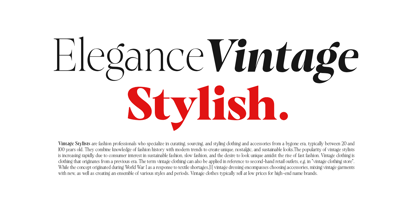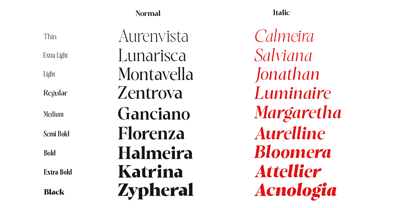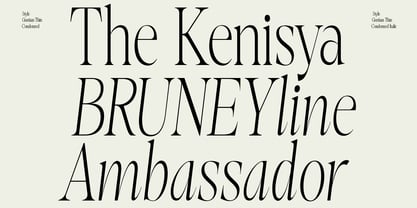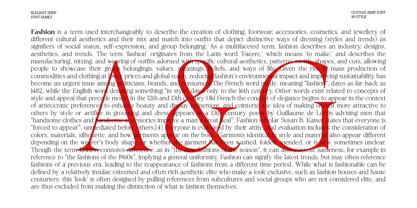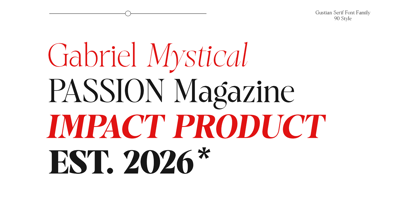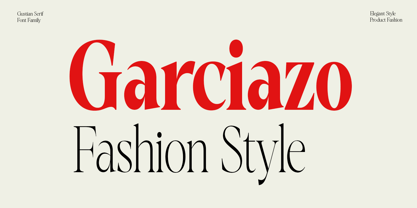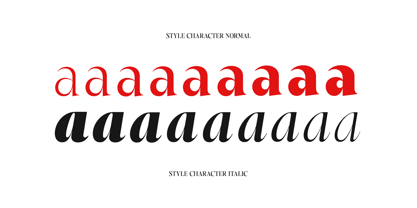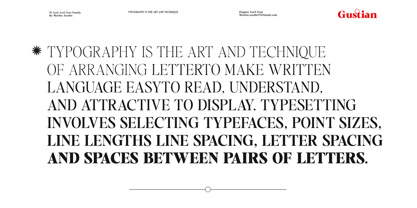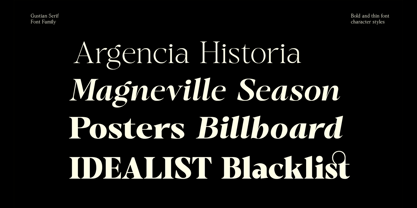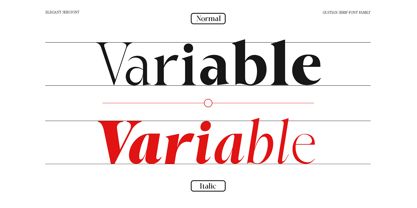
Gustian
by Mordex Studio
The Gustian Font Family was designed by Teuku Hamzah and published by Mordex Studio. Gustian contains 92 styles and family package options. More about this family
Gustian is a modern variable serif typeface that blends luxury, clarity, and contemporary elegance into one highly versatile font family. Designed with a delicate balance of sharp details and soft curves, it enhances every curve and white space, expands multilingual support, and introduces new typographic tools for maximum flexibility. Gustian offers up to 90 styles, including upright and italic forms. This extensive flexibility allows designers to refine typography with precision—from clean, minimalist layouts to bold, expressive statements. Balanced proportions, high legibility, and consistent rhythm work beautifully across a wide range of large display sizes and smaller text settings. Perfect for: branding and logos, editorial, and app design, advertising, packaging, and high-end display typography. Key features: Fully variable font for maximum flexibility Luxurious modern serif characters Balanced sharp and soft shapes for a premium feel Comprehensive font family suitable for both display and text use